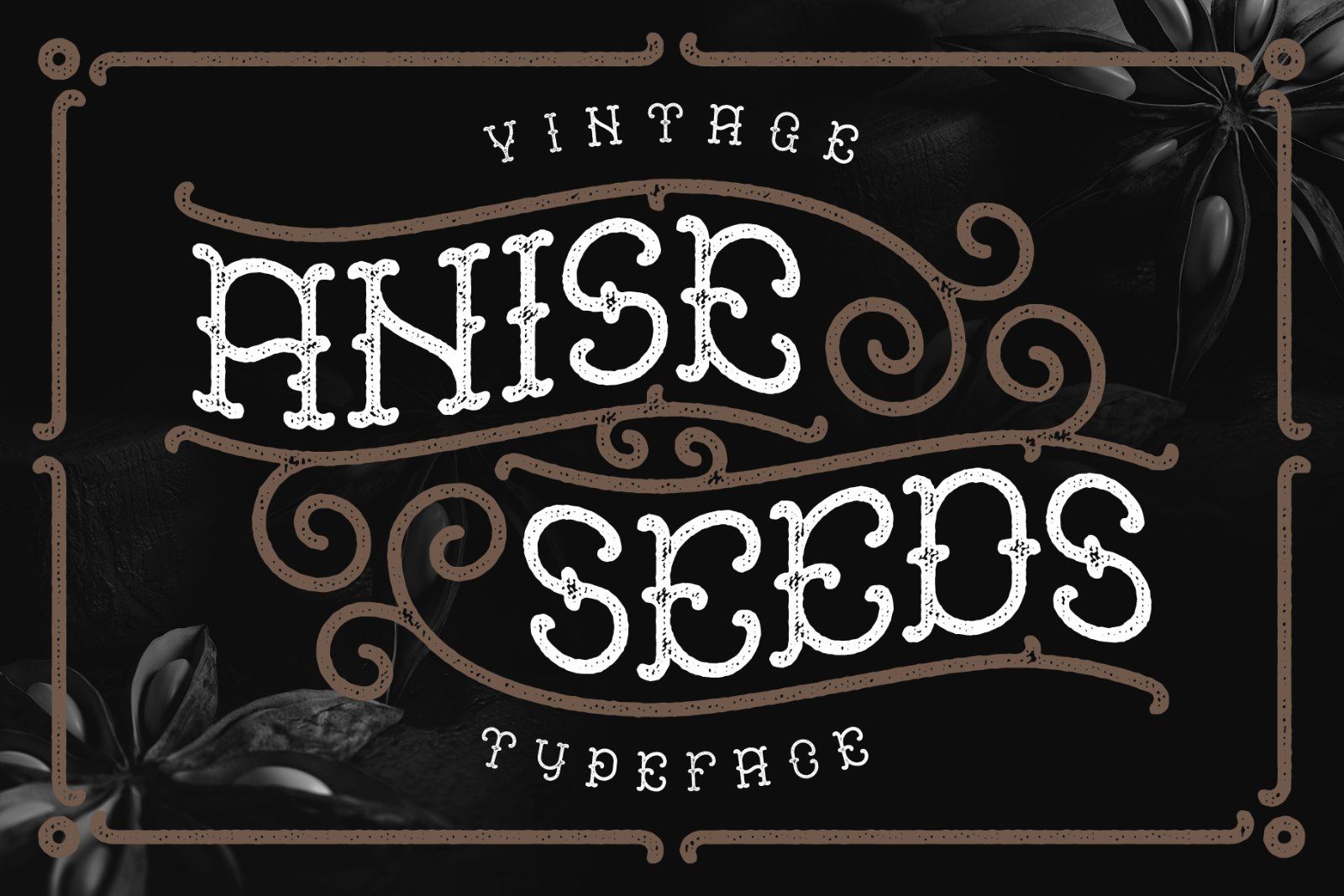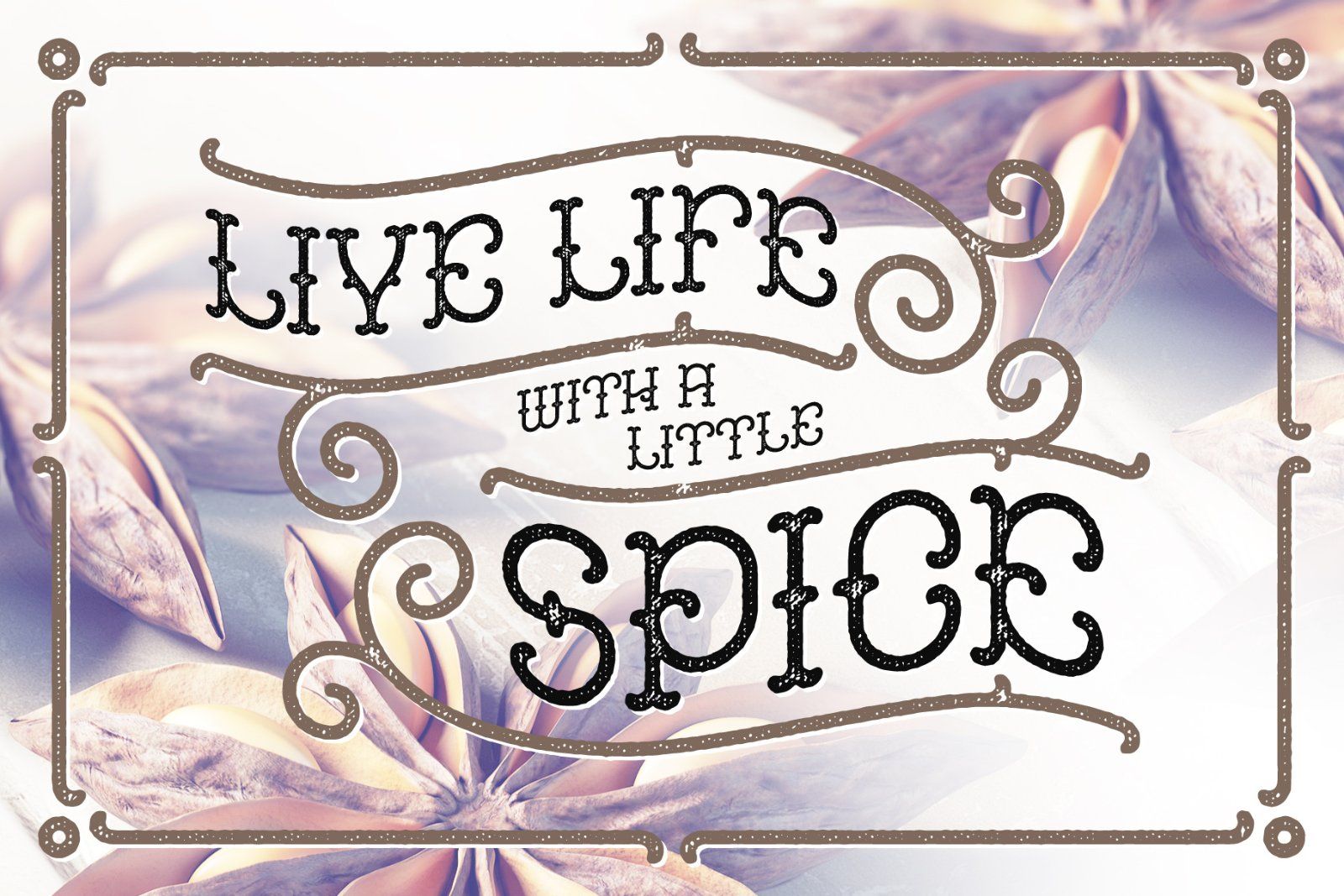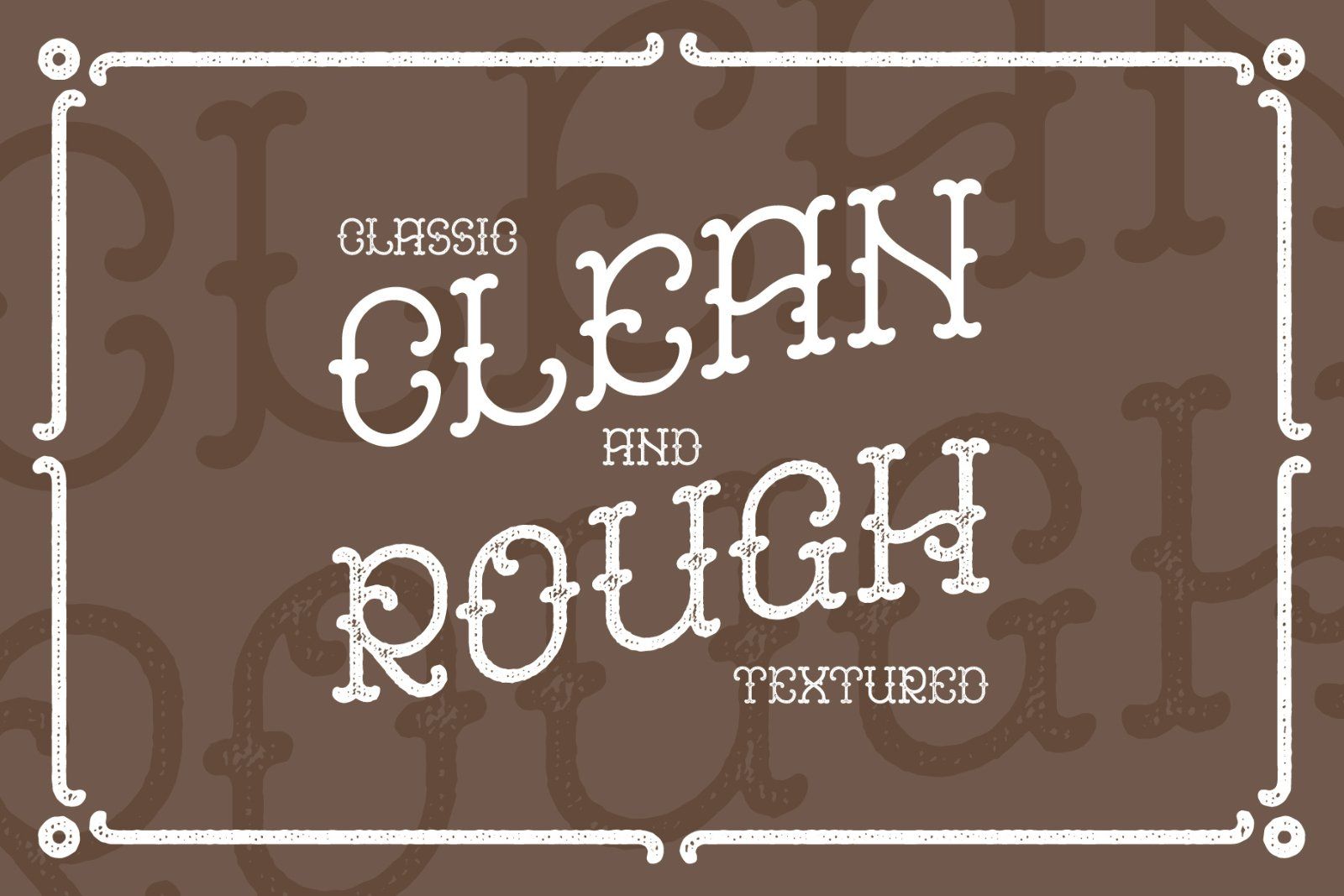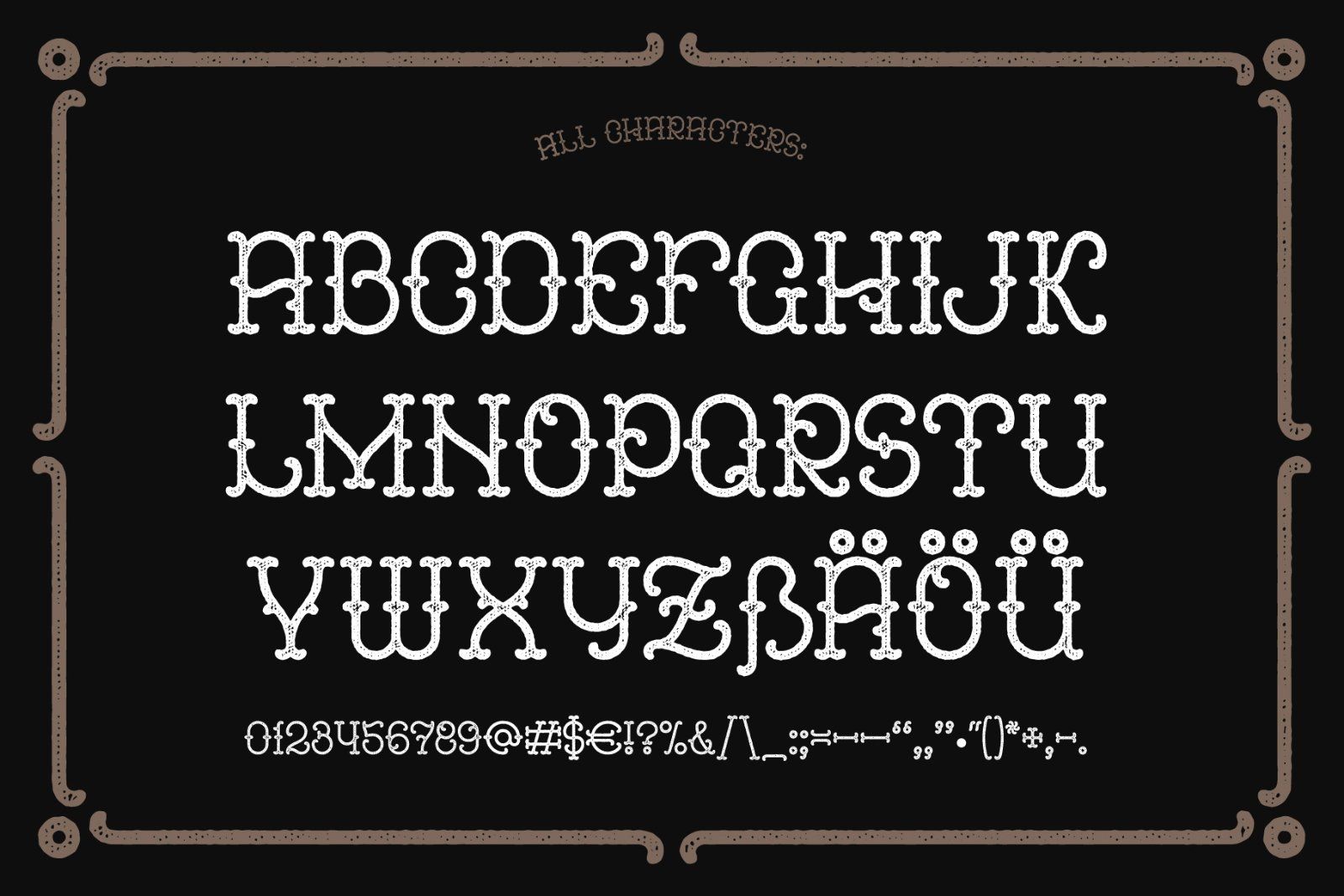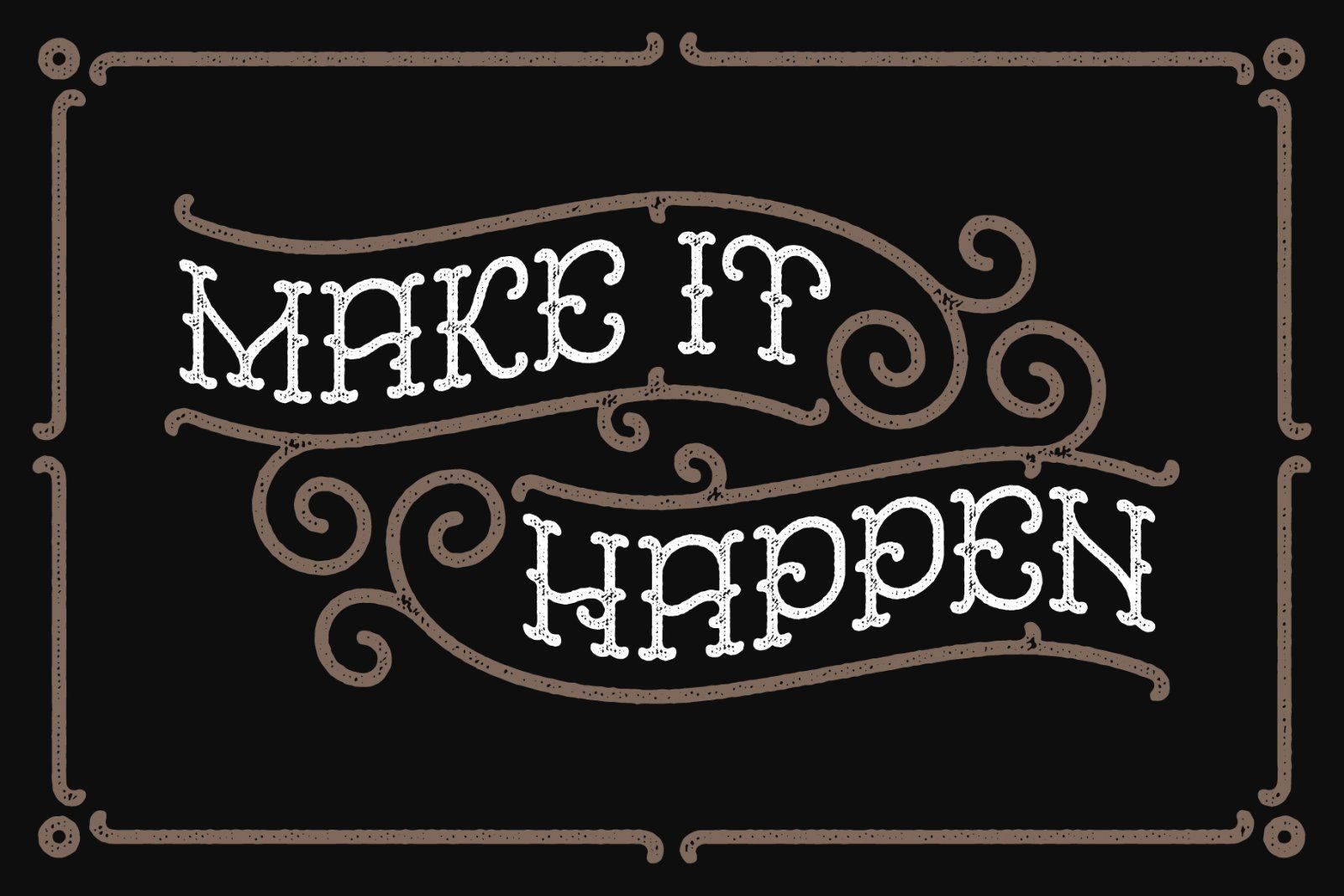
Hi, introducing a vintage typeface named "Anise Seeds". It includes two versions - textured rough and smooth clean. Also it comes with useful vector files: editable .ai and .eps templates with decorative ornate frame.